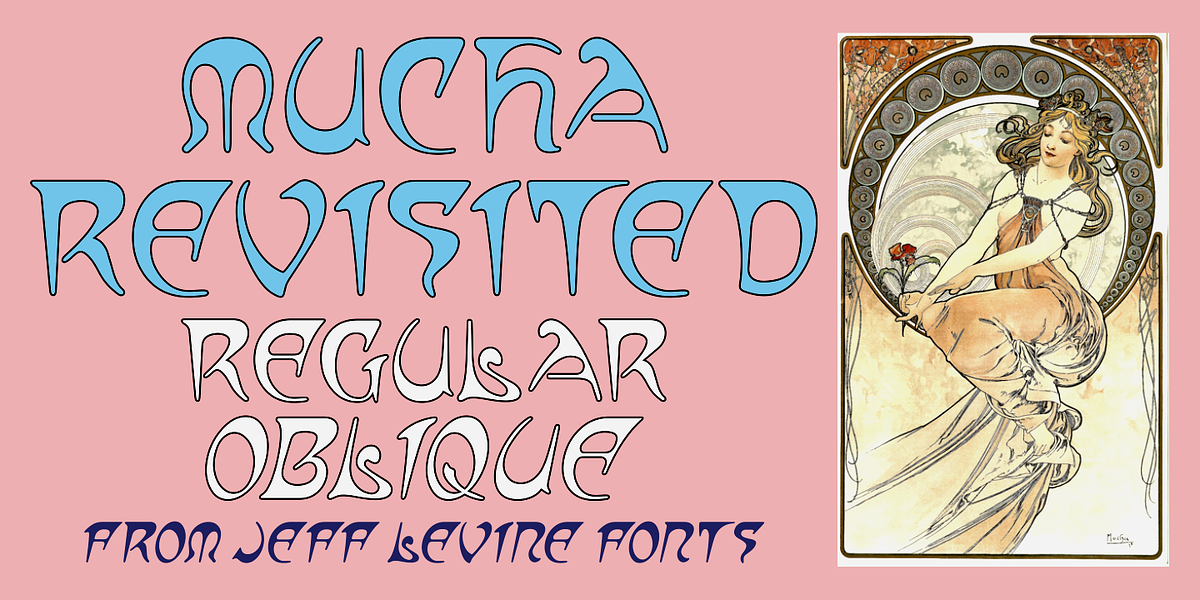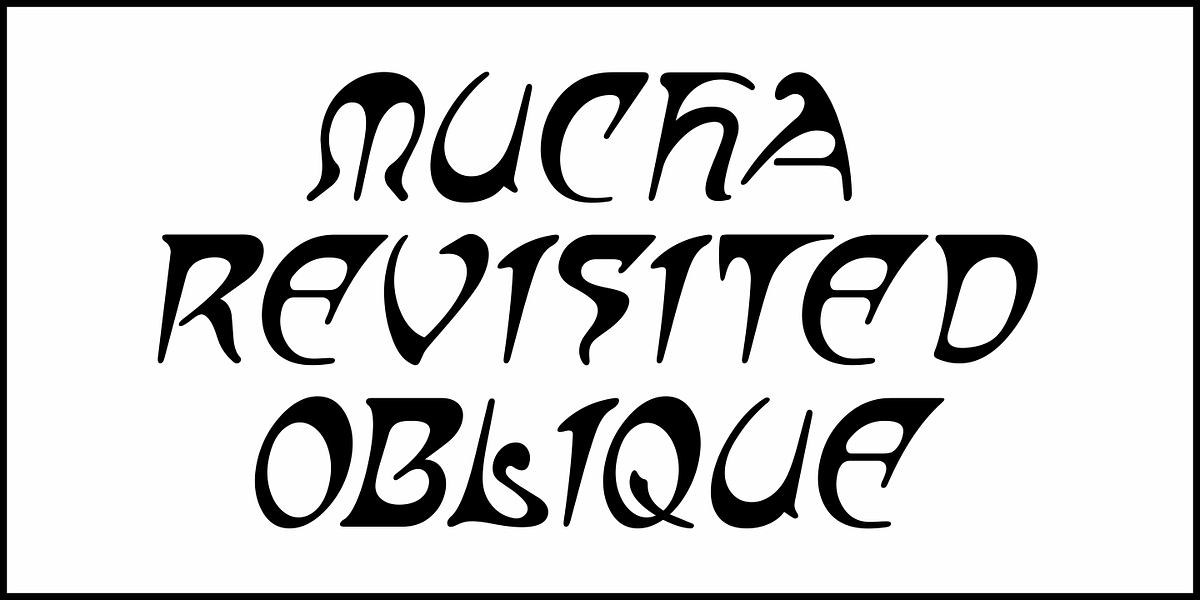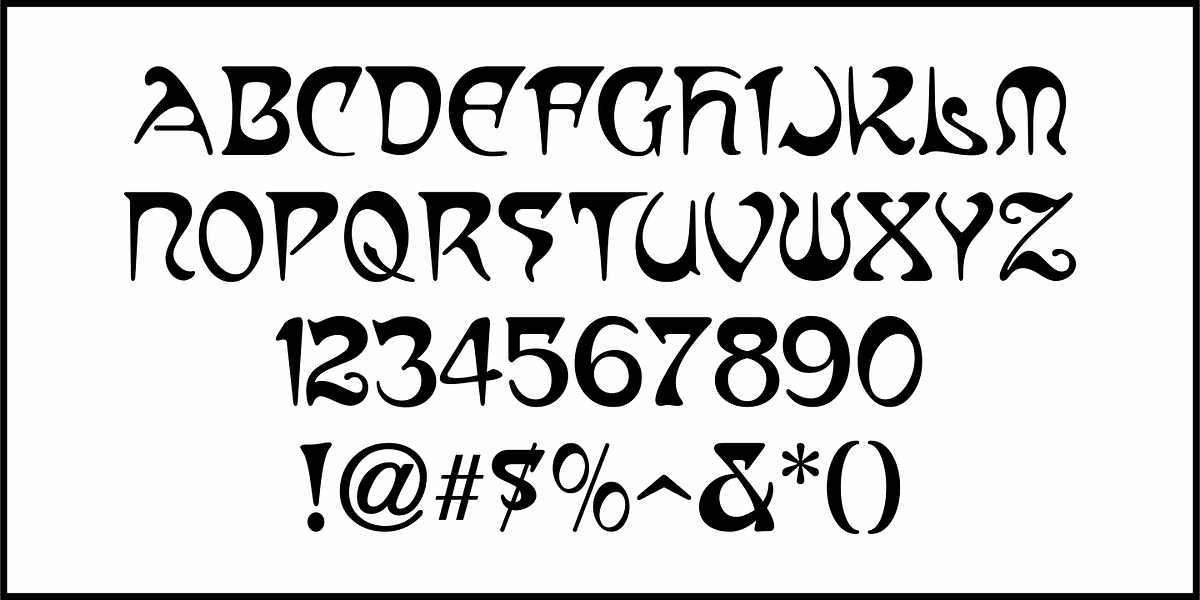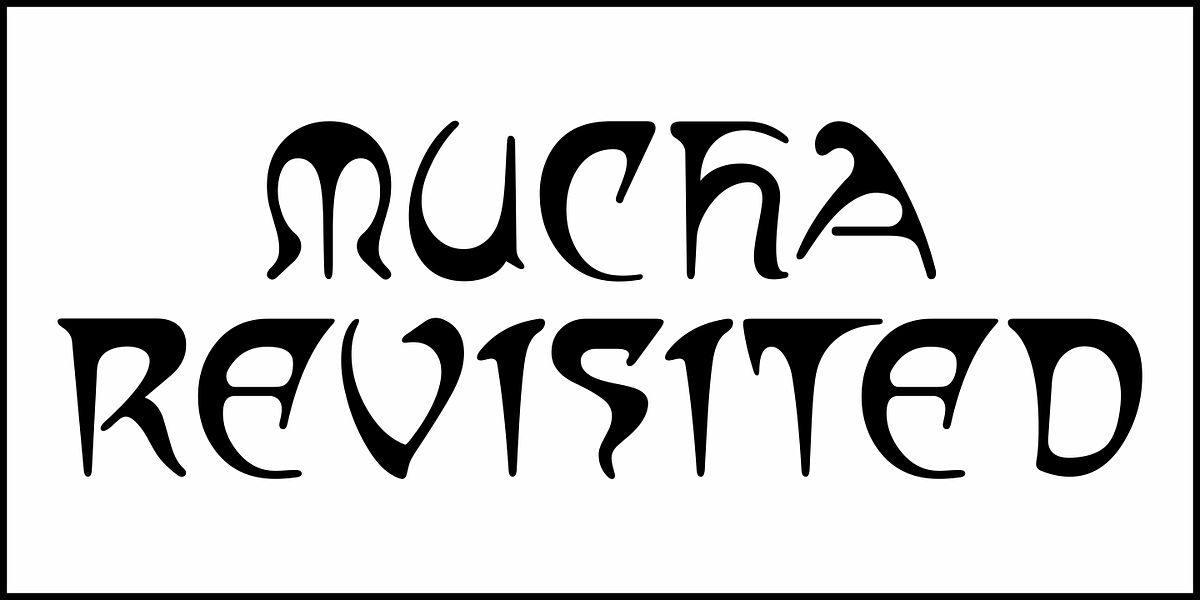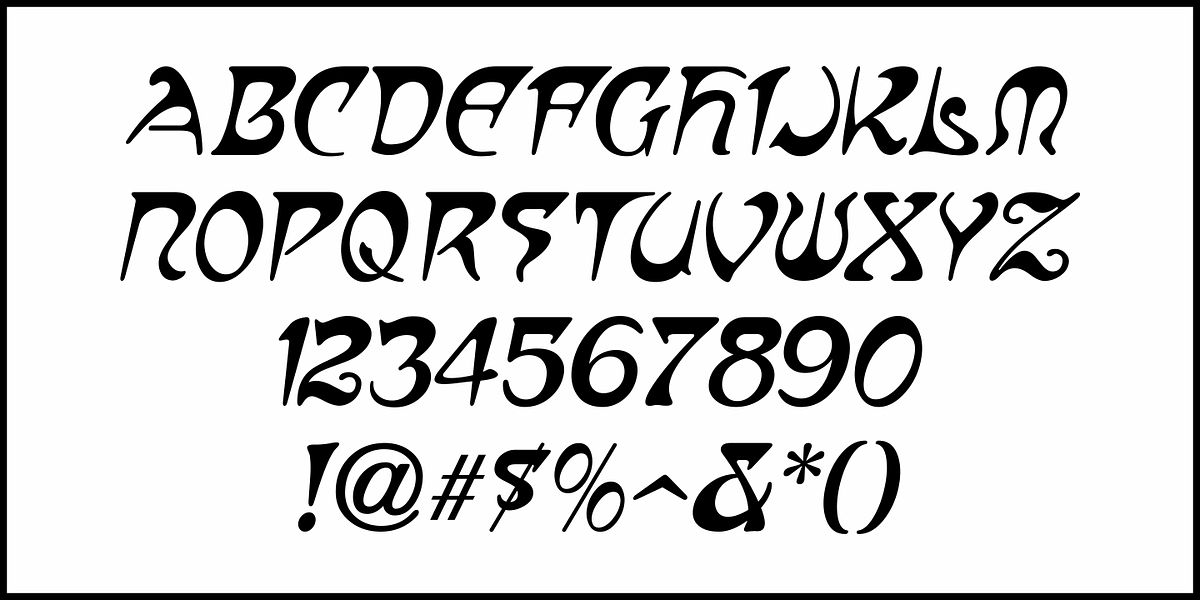
Mucha Revisited JNL
A poster designed in 1911 by Alphonse Mucha for the Moravian Teachers Choir featured his extremely fluid and stylized hand lettering that became the inspiration for many 1960s counter-culture poster artists.
This design is now available as the digital typeface Mucha Revisited JNL in both regular and oblique versions.